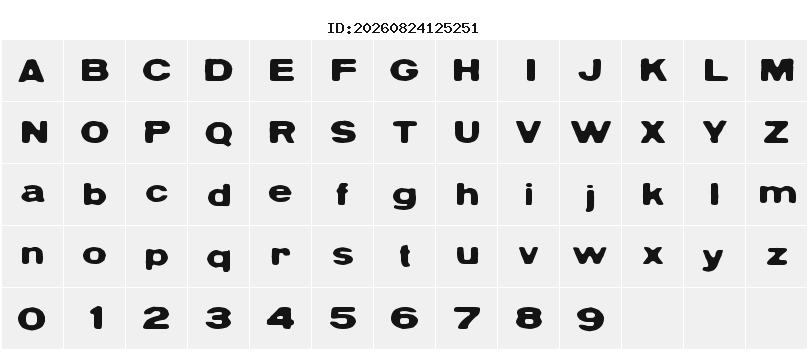
Sadannes Preview
• Font Name: Sadannes
• Font ID: Sadannes:Version 1.00
• Full Font Name: Sadannes
• Version: Version 1.00 June 13, 2014, initial release
• PostScript Name: Sadannes
• Designer: junkohanhero
About Sadannes.ttf
Sadannes.ttf is a modern, elegant sans-serif font designed for ultimate readability and visual harmony. Perfect for branding, headlines, web design, and print materials.